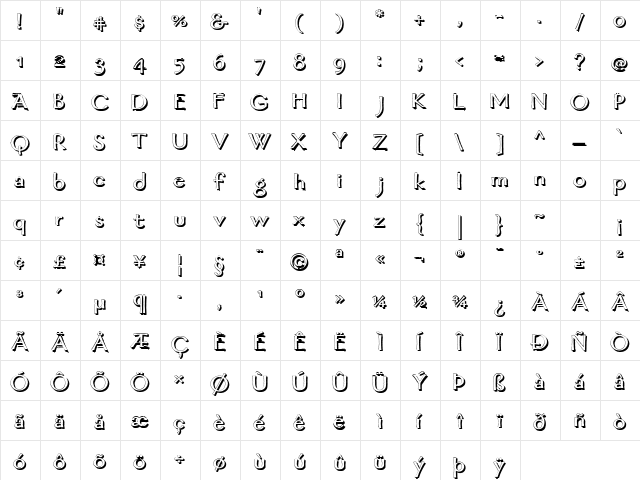
Mordred Shadow Bold
Design Context for Mordred Shadow Typeface
Mordred Shadow brings ornamental detail and strong personality to headlines and identities, where visual impact matters more than quiet functionality. Its bold stroke weight gives it real presence on the page.
Font Pairing: Pair with a clean neutral sans-serif for body copy to let Mordred Shadow's character lead without overwhelming the composition.
Pro Tip: Treat Mordred Shadow as the centrepiece of your typographic hierarchy. One strong heading set in a decorative face can carry an entire layout.